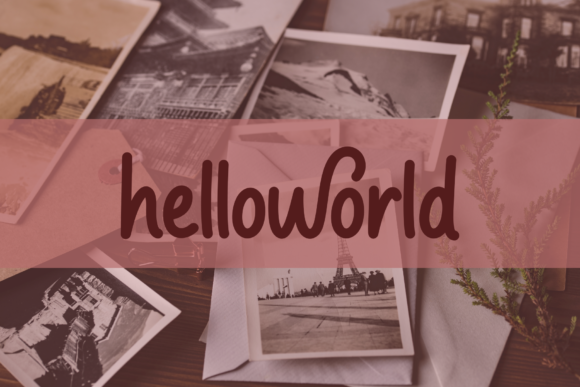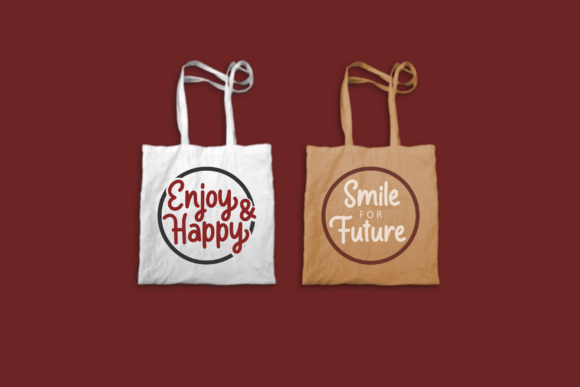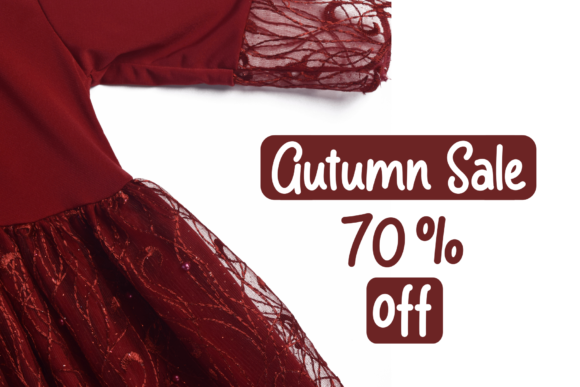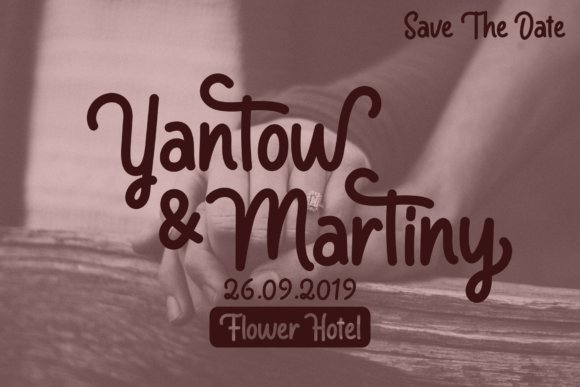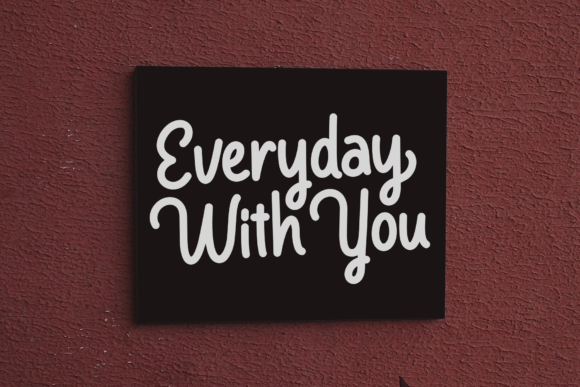
Discover the Magic of Santuy Font
Enter the Santuy Font – a stunning display font with gorgeous swashes that will add a touch of elegance to any design. Whether you’re working on a high-quality brochure, a free download digital asset, or a design resource for a client, this font is sure to make your project shine. With its transparent background and high-quality design, the Santuy Font is a valuable addition to any designer’s toolkit.
- Unique characteristic: the font’s distinctive curves and lines evoke a sense of playfulness and creativity, making it perfect for projects requiring a touch of whimsy.
Honest Review: Santuy Font
I recently had the chance to work with the Santuy Font, and I must say it’s a great addition to any design project. One of the things I appreciate about this font is its unique style, which can add a creative touch to any text-based element.
- ✨ High-quality design: The Santuy Font looks clean and crisp, making it perfect for both digital and print designs.
However, there are a few limitations to consider. For one, the font may not be as versatile as some other options, and it may not work well with certain design styles.
- ⚠️ Limited versatility: The Santuy Font may not be the best choice for designs that require a lot of flexibility or customization.
- ⚠️ May not work with certain styles: The font’s unique style may not mesh well with more traditional or minimalist designs.
Overall, I think the Santuy Font is a great resource for designers who need a high-quality, unique font for their creative projects. While it may have some limitations, I think it’s definitely worth checking out.
When using Santuy Font, keep in mind that it’s a high-quality font with a transparent background, making it perfect for creating graphics with a clean and minimalist look. Some common use cases for Santuy Font include social media graphics, presentations, posters, and flyers. To get the most out of Santuy Font, experiment with different font sizes, colors, and styles to match your design needs.